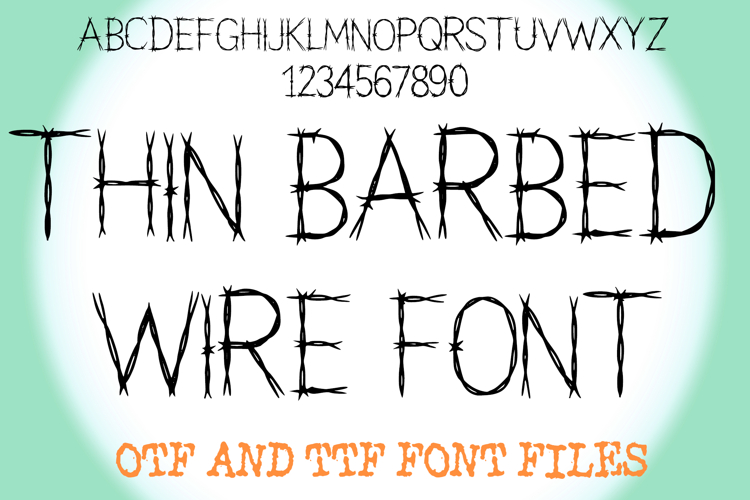
Thin Barbed Wire Lettering ABC Text Font Alphabet OTF Type IllustrationÂ
A spiky style font where you can create your own words and colour them to your vision!